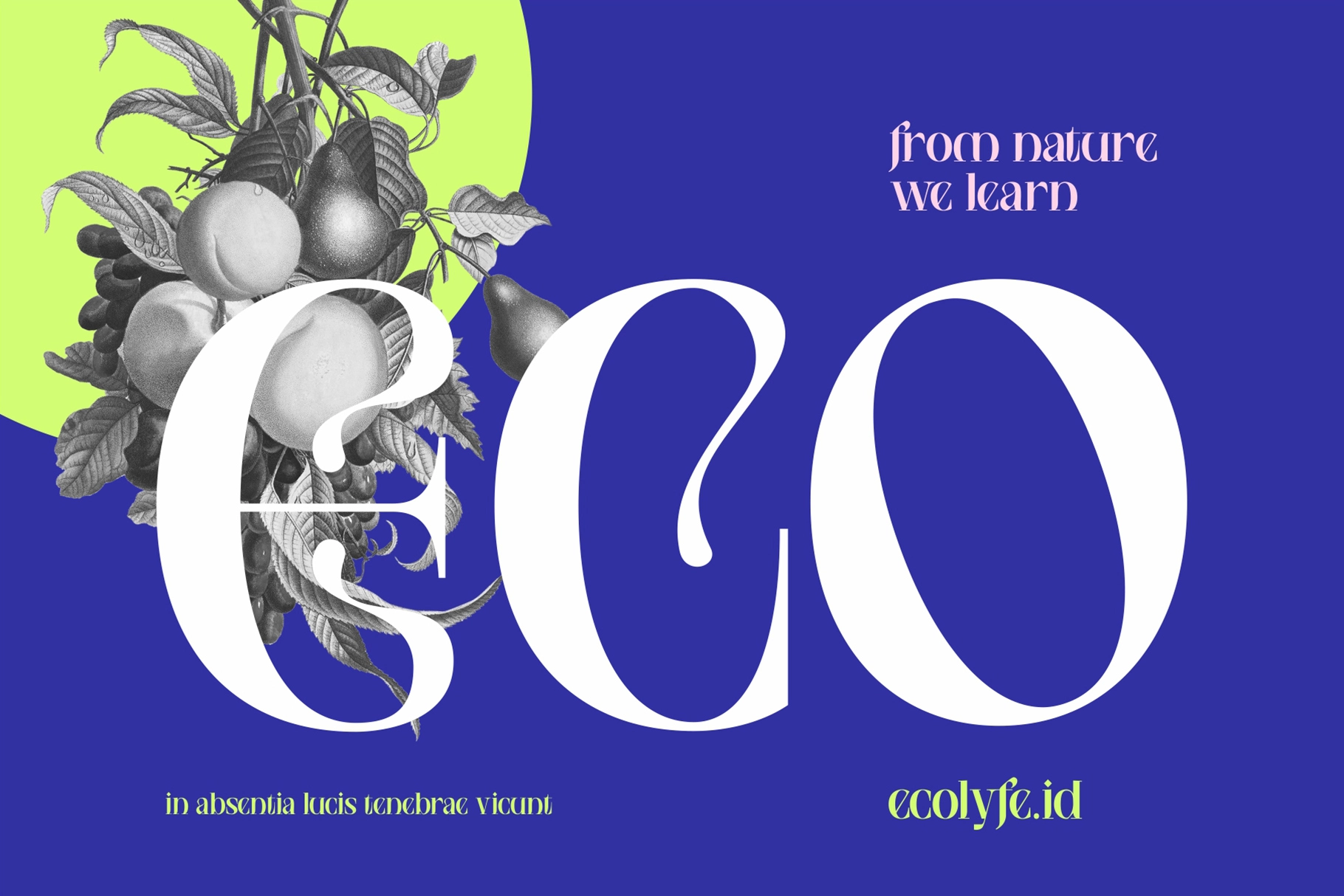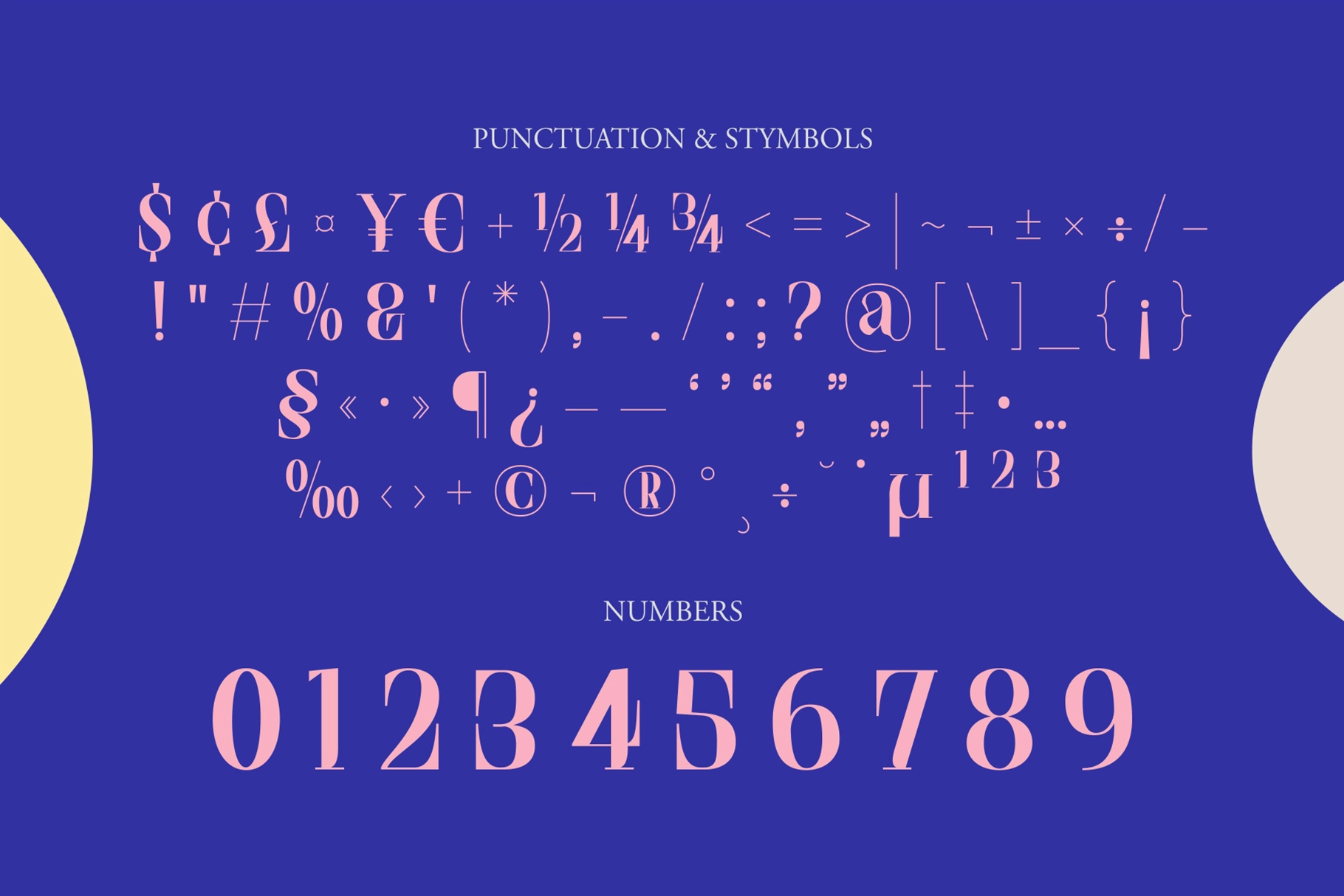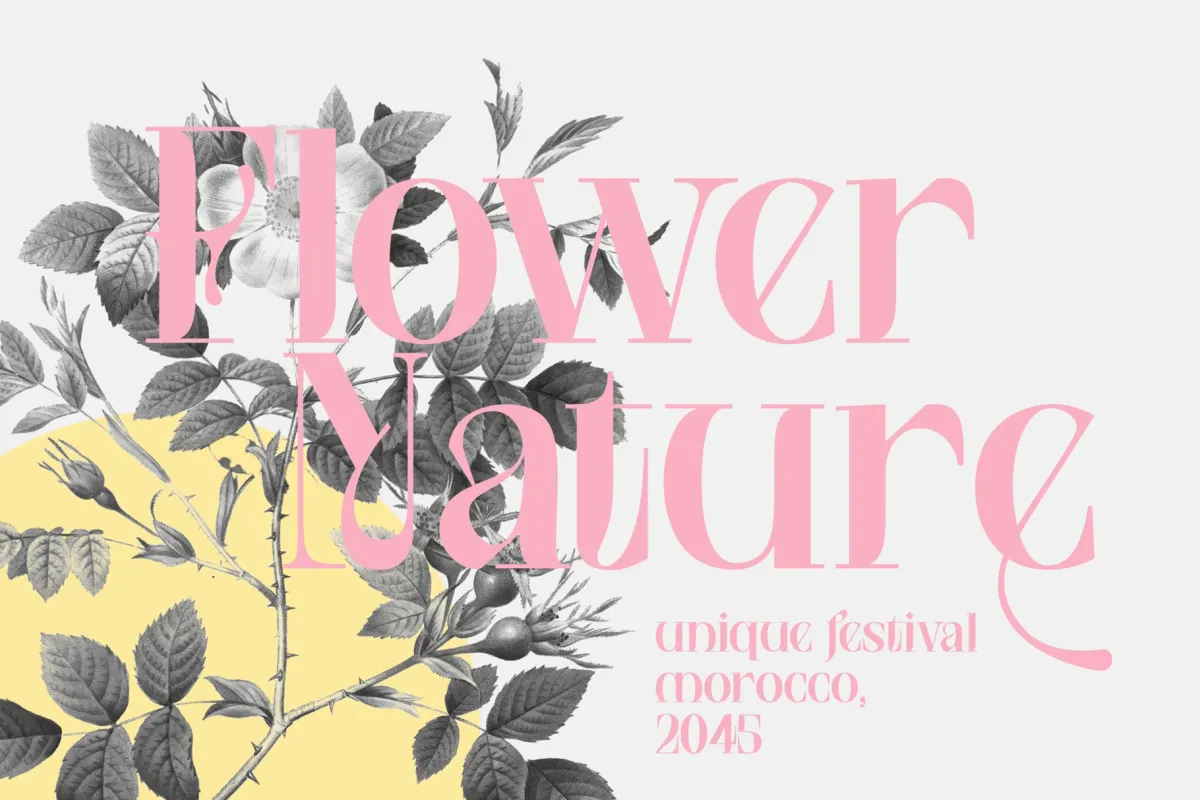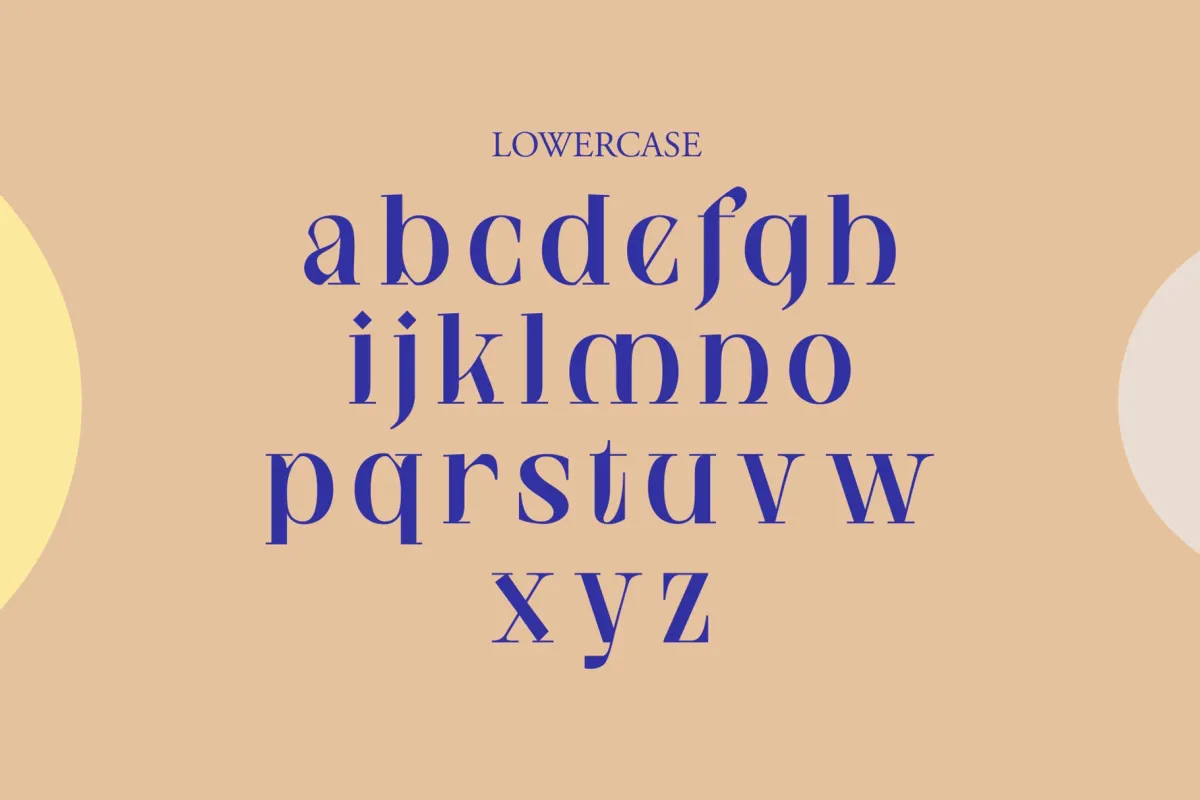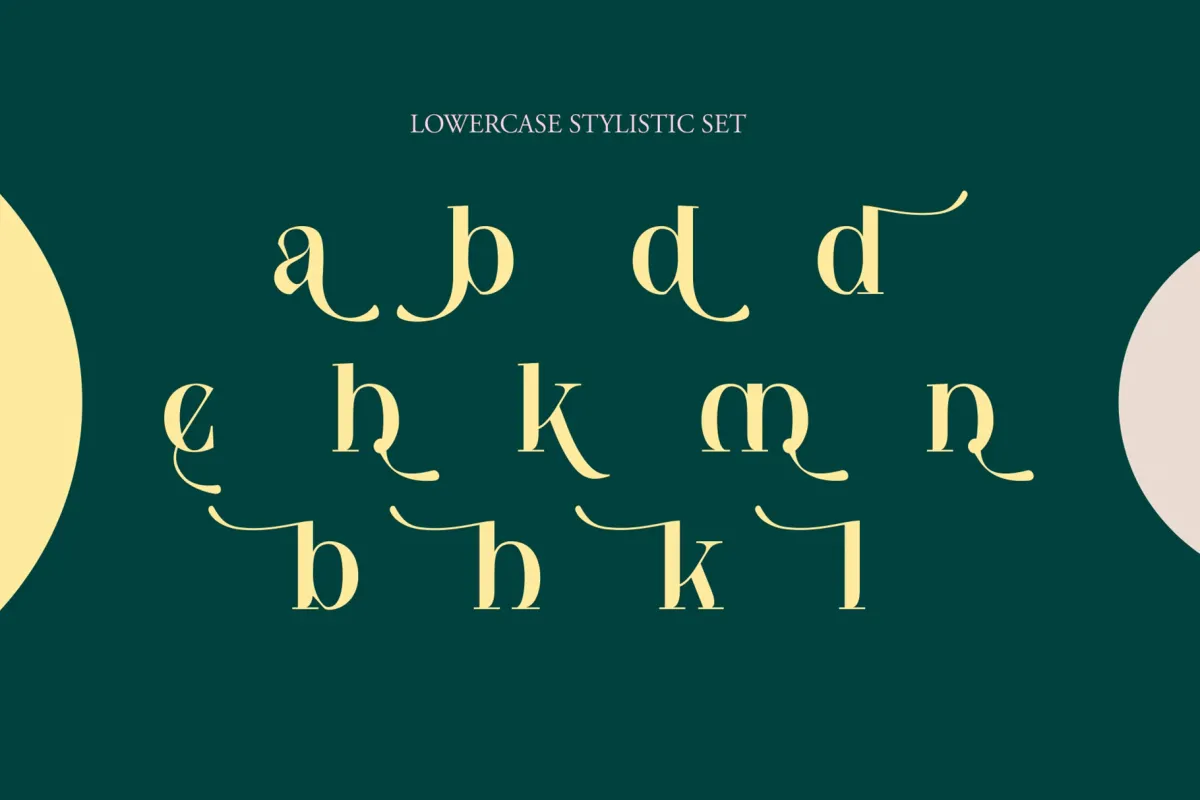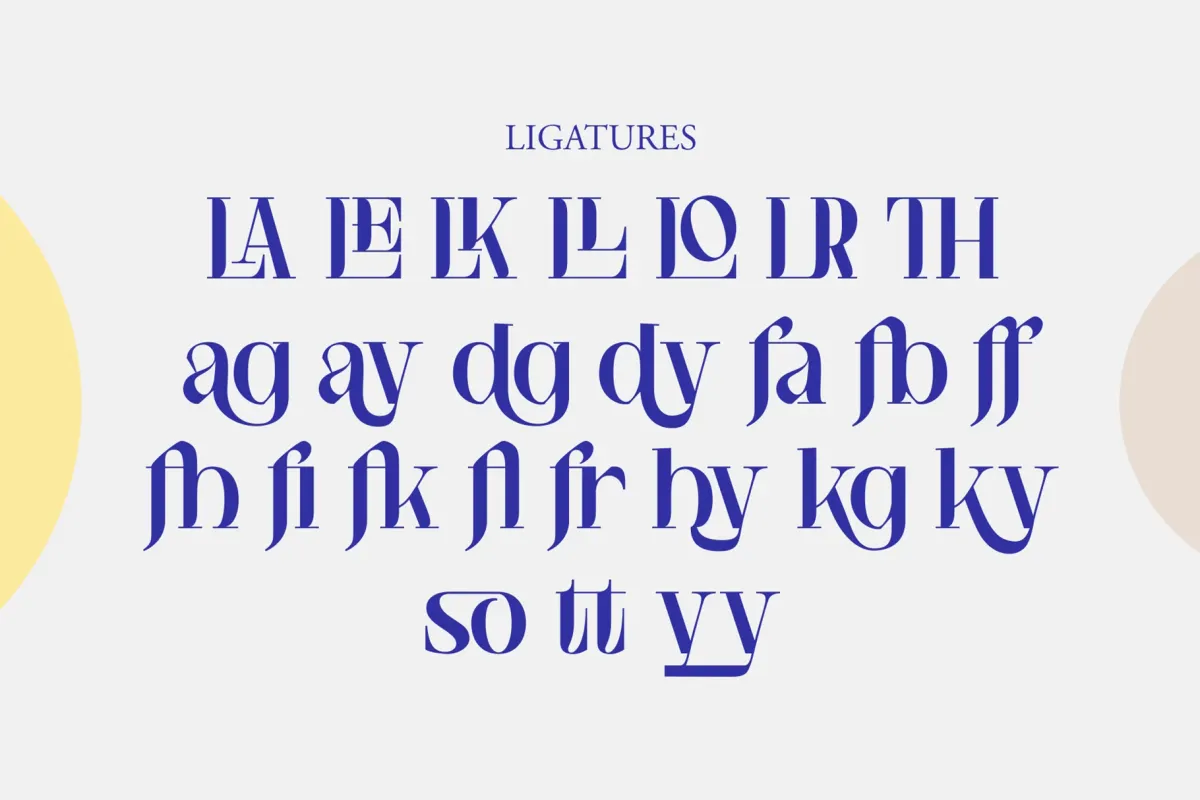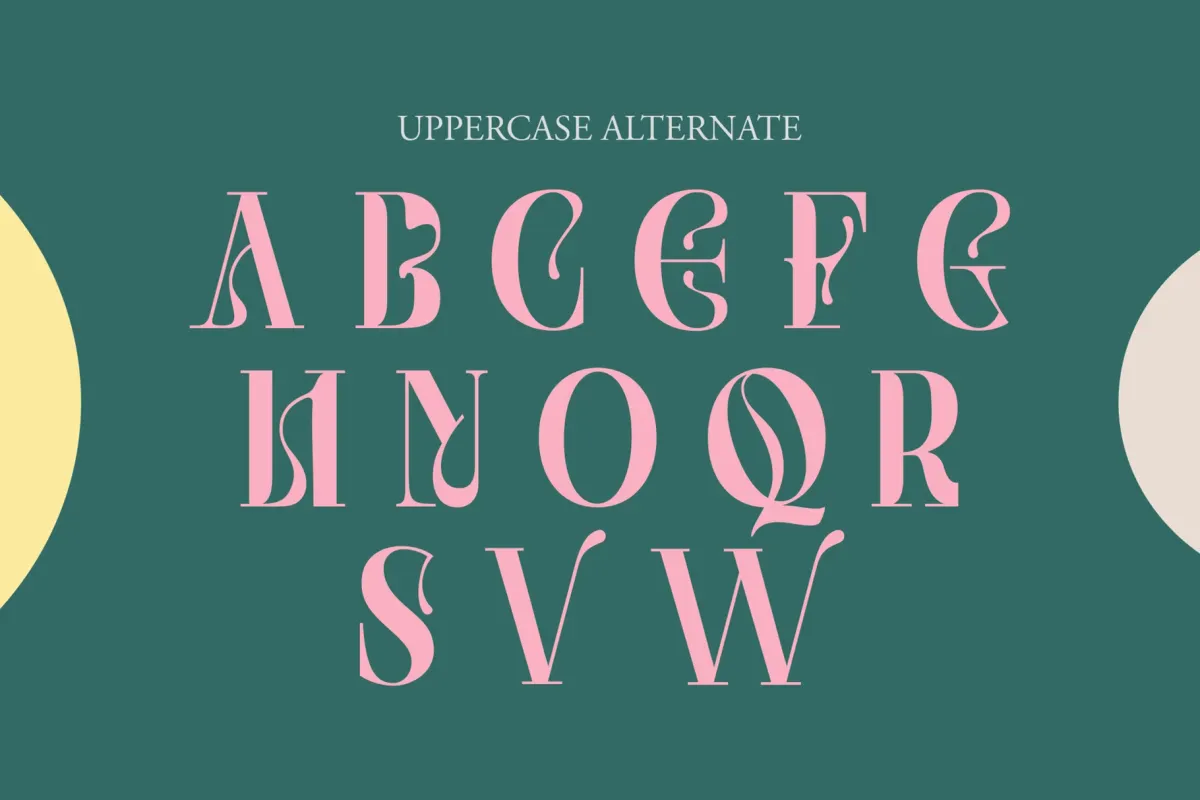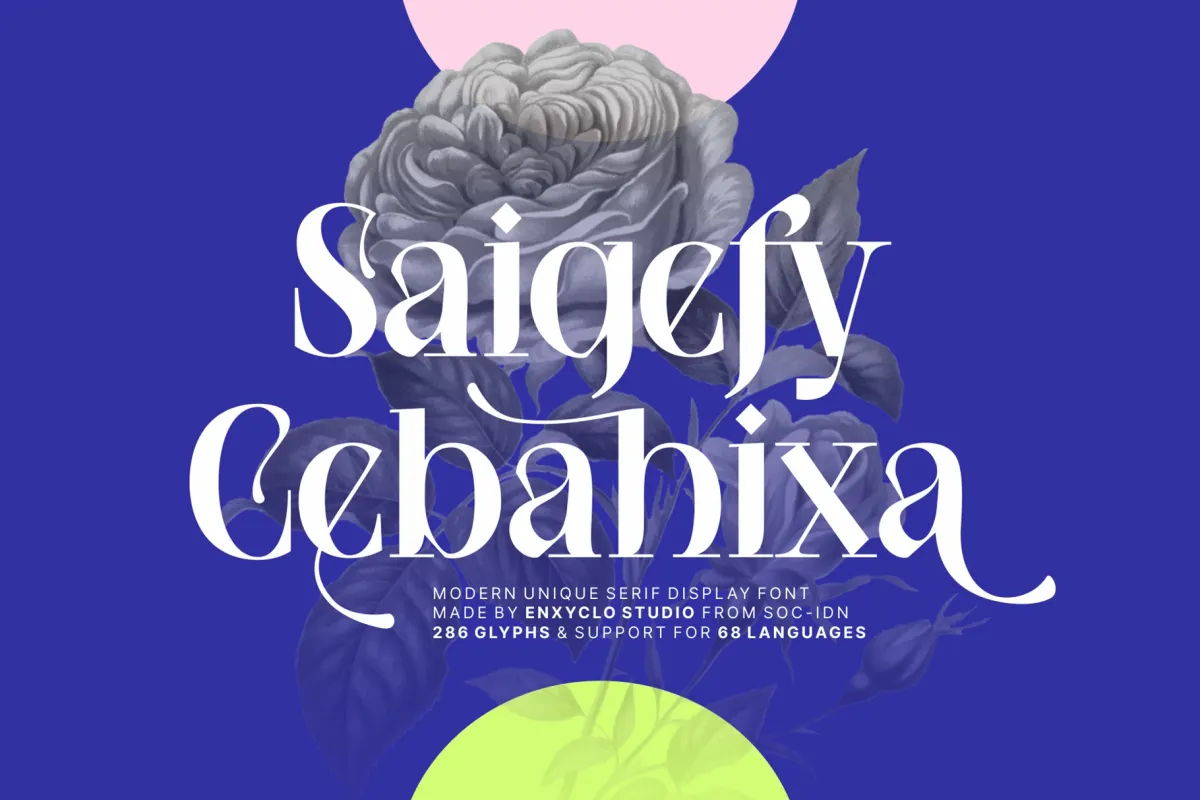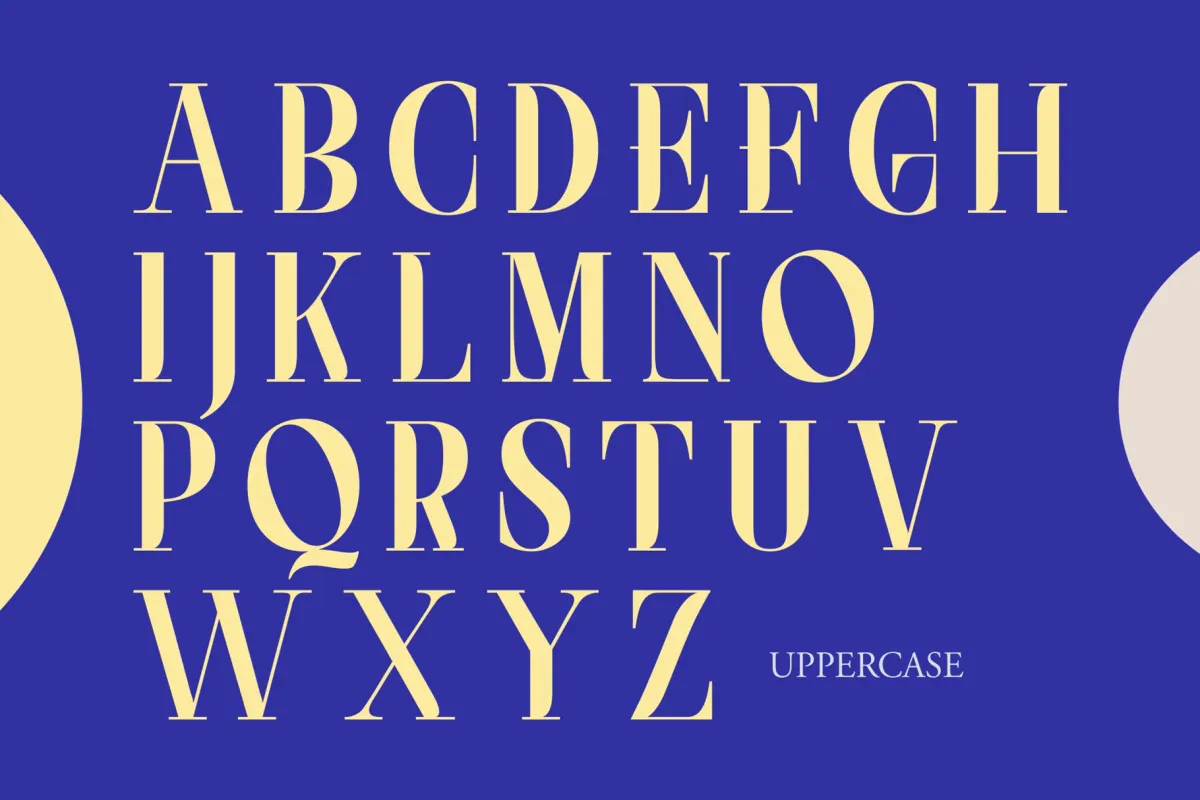
Saigefy Cebahixa - Elegant Modern Serif Font
Saigefy Cebahixa – Elegant Modern Serif Font is a refined display serif that combines modern sophistication with distinctive character details. Designed with graceful curves, stylish contrasts, and expressive terminals, this typeface delivers a luxurious and contemporary aesthetic that instantly elevates visual compositions. Its elegant structure creates strong headlines while maintaining clarity and balance across different design applications.
Perfect for branding, editorial layouts, wedding designs, posters, logos, and premium packaging, Saigefy Cebahixa brings a polished and stylish presence to any project. The font’s unique stylistic alternates and special ligatures allow designers to craft elegant typographic compositions that feel both modern and timeless.
- 286 Glyphs
- Uppercase & Lowercase Characters
- Numerals, Punctuation & Symbols
- Unique Stylistic Set
- Special Ligatures